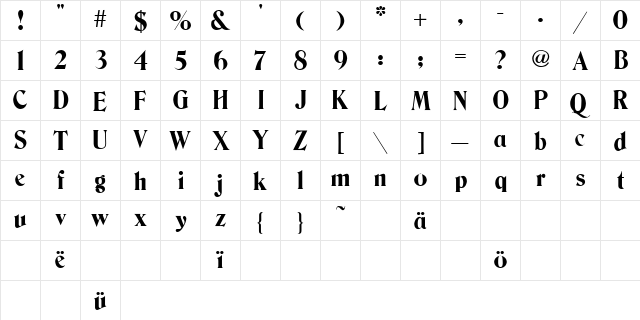
Bernase Normal Font Preview
Bernase Normal
Design Context for Bernase Typeface
Bernase takes a measured approach to typography — its balanced proportions and neutral character make it a reliable workhorse for both digital and print work.